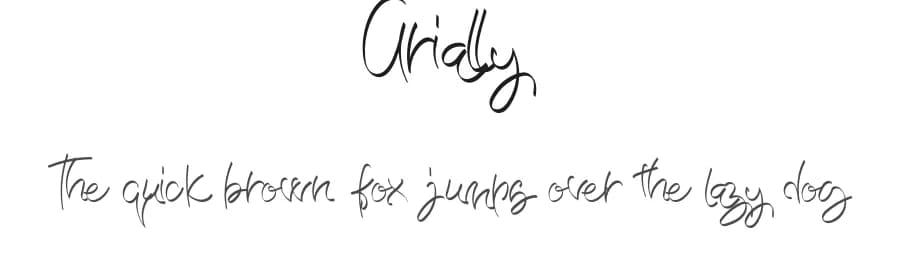
About Arially Font
Arially is handwritten casual handwritten calligraphy font which looks bold and elegant at the same time.
Arially is perfect for any branding projects including but not limited to logo, social media posts, advertisements, product packaging, product designs, label, photography,
wedding invitation, stationery and any projects that need handwriting taste.
Arially Font is a script font that shines as a display or heading face. Pair it with a clean sans-serif or serif font for body text β the contrast creates a clear hierarchy while the two styles stay balanced and easy to read.